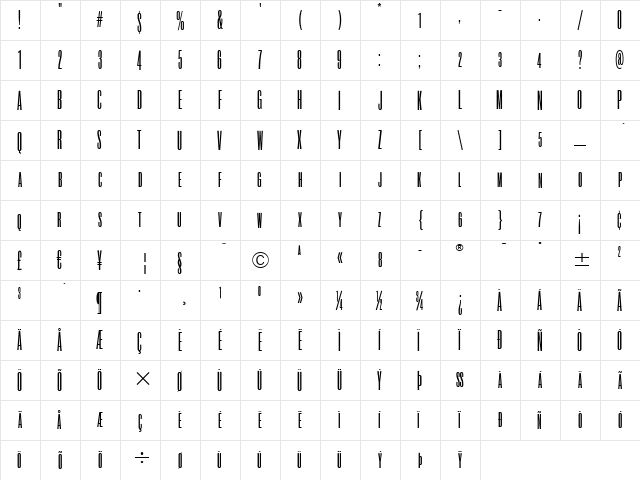
Roswell SC Two ITC Light
Design Context for Roswell SC Two ITC Typeface
Roswell SC Two ITC is a composed and adaptable typeface that performs quietly and consistently across a wide range of design contexts. The delicate stroke weight brings airiness and refinement to layouts.